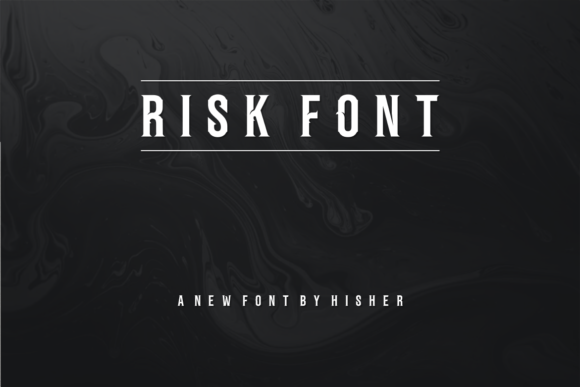
Introducing Risk Font: The Bold and Playful Display Font That Commands Attention
Unleash your creativity and make a lasting impression with Risk Font, a captivating display font that exudes personality and style. Bold, playful, and distinctively unique, Risk Font is not just a font; it's an experience that transforms your designs into masterpieces. As a display font, Risk Font excels in grabbing attention and making your words shine. Its distinct character makes it the perfect choice for headlines, posters, logos, branding, and any design project that demands impact.
Step into a world of endless possibilities with Risk Font. With its playful and versatile nature, this font adapts seamlessly to various design styles, from the quirky and whimsical to the elegant and sophisticated. Whether you're creating eye-catching social media graphics, designing stunning posters, or crafting logos that leave an unforgettable mark, Risk Font is your secret weapon.
Immerse yourself in the creative possibilities that Risk Font unlocks. Its bold and confident strokes add an instant touch of personality to your projects, making them stand out from the crowd. Let your imagination soar as you explore the endless combinations of colors, sizes, and effects that Risk Font offers. The possibilities are limitless, and the results are guaranteed to wow your audience.